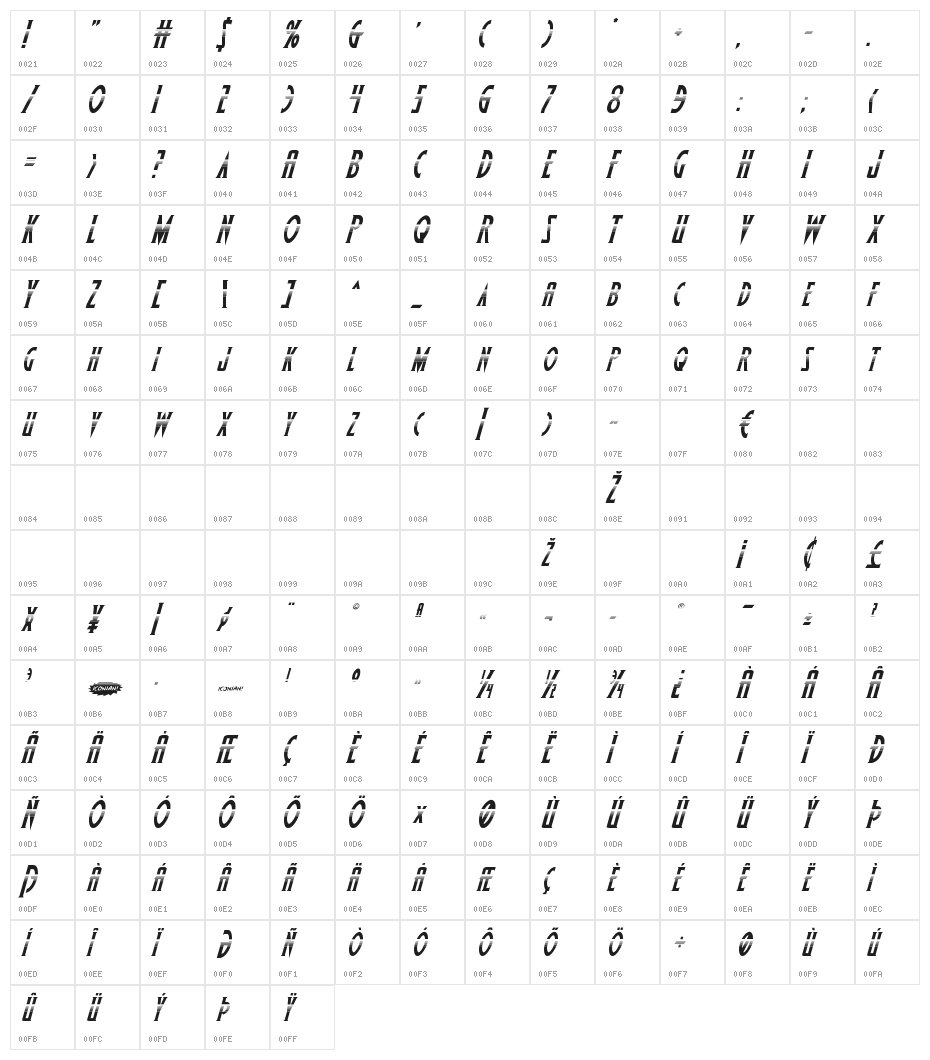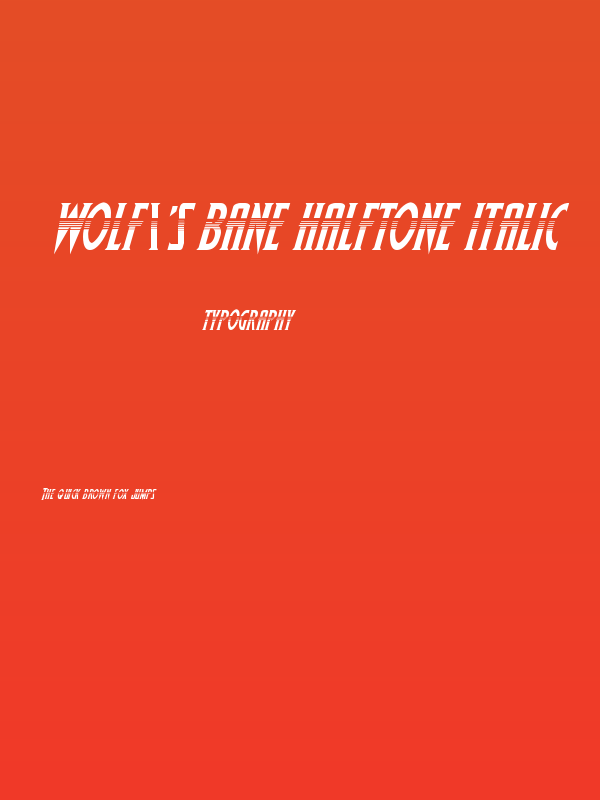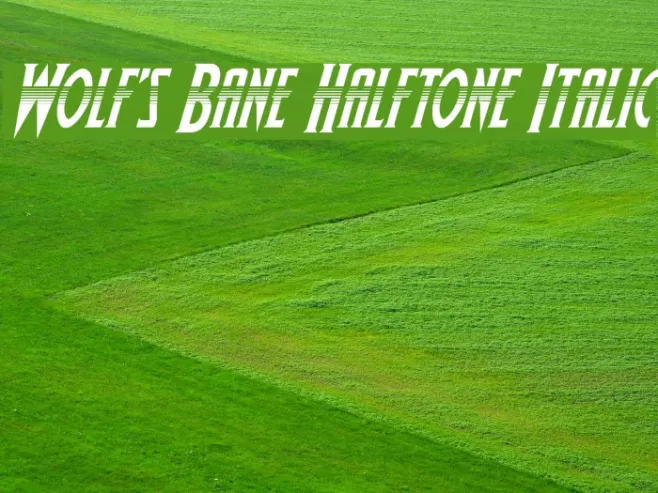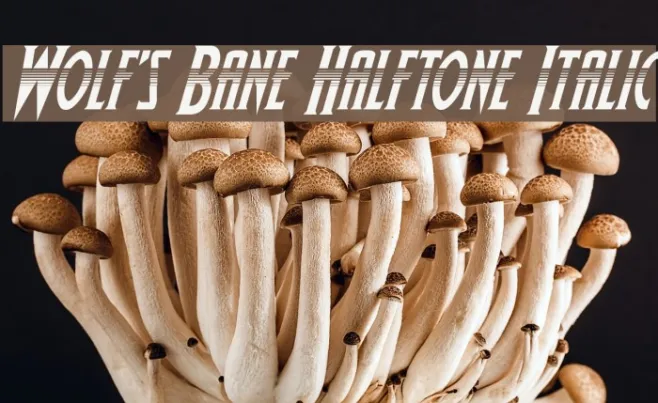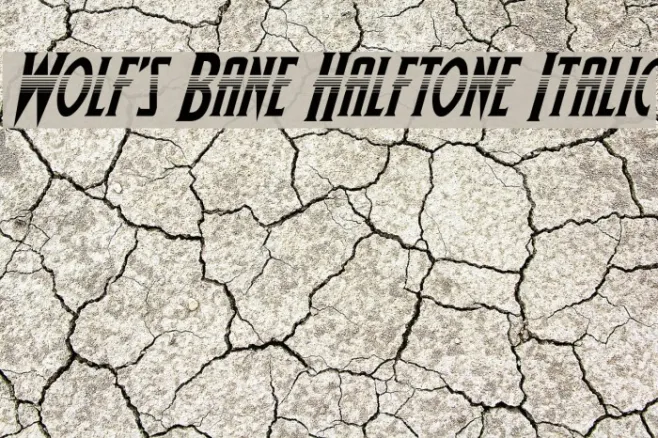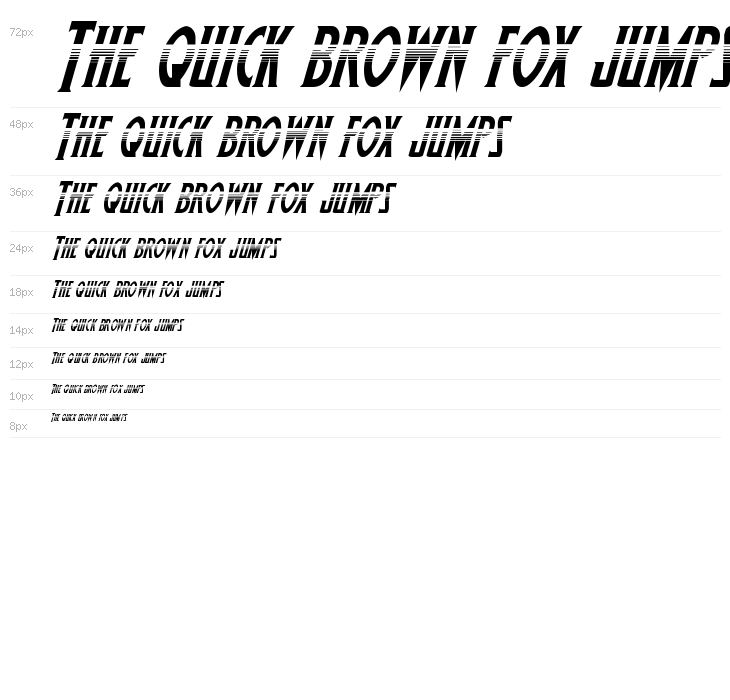
Wolf's Bane Halftone Italic Font
Wolf's Bane Halftone Italic Description
This font features a bold and dynamic design with a distinct halftone effect that gives it a unique, edgy appearance. The characters are italicized, adding a sense of motion and urgency. The uppercase and lowercase letters maintain a consistent style, with sharp angles and a slightly condensed form. The numbers and special characters follow the same aesthetic, ensuring uniformity across all text. The halftone pattern creates a striking visual effect, making it ideal for attention-grabbing designs.